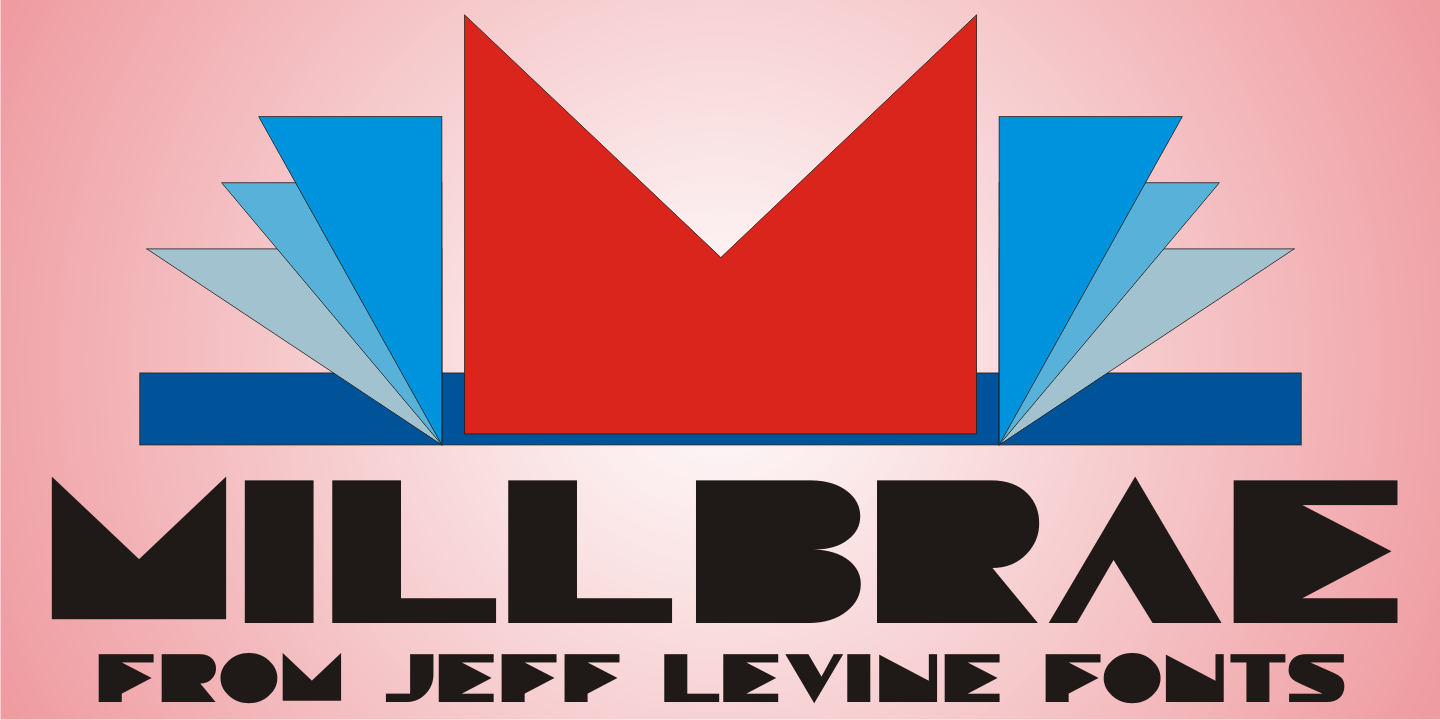
Millbrae
In the city of Millbrae (just South of San Francisco in San Mateo County, California) stands an office building which formerly housedthe Millbrae Theater.
California has the distinction of preserving artifacts of its past, unlike many other portions of the US, and the perpendicular 'Millbraeā sign with its neon tubes and Art Deco lettering is still attached to the renovated structure.
Gene Gable (a friend of type designer Jeff Levine) took a photo of the sign and sent it along as simply an image of great lettering of the past to enjoy, but it triggered the inspiration to create the namesake font Millbrae JNL.